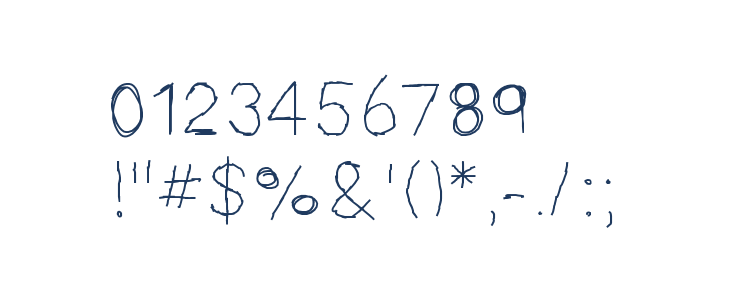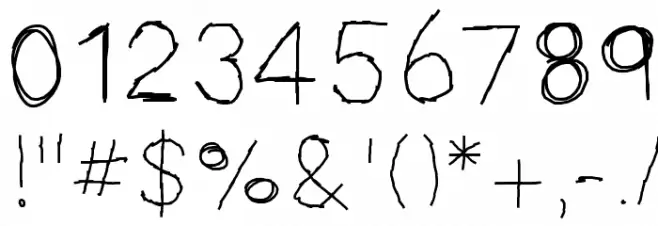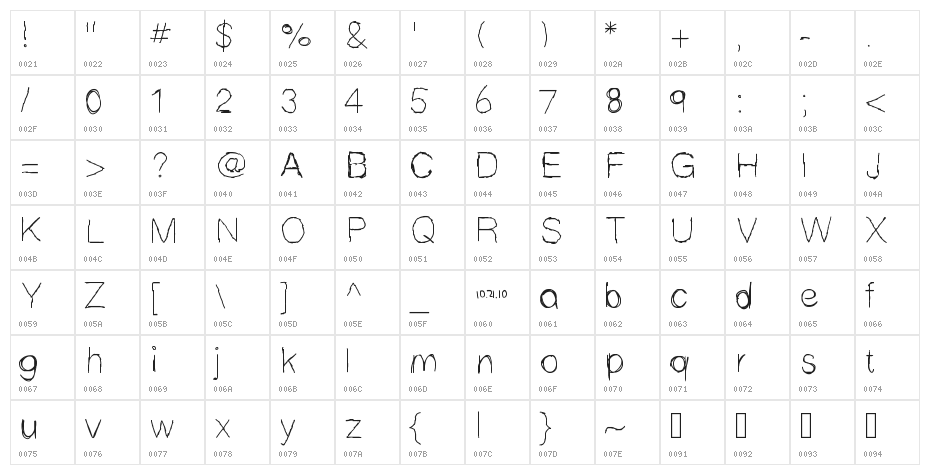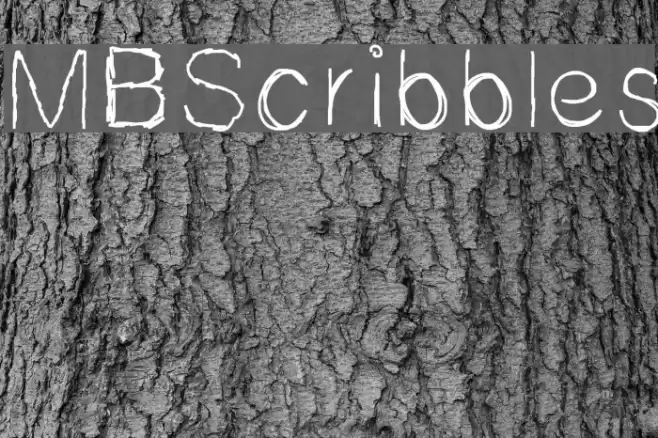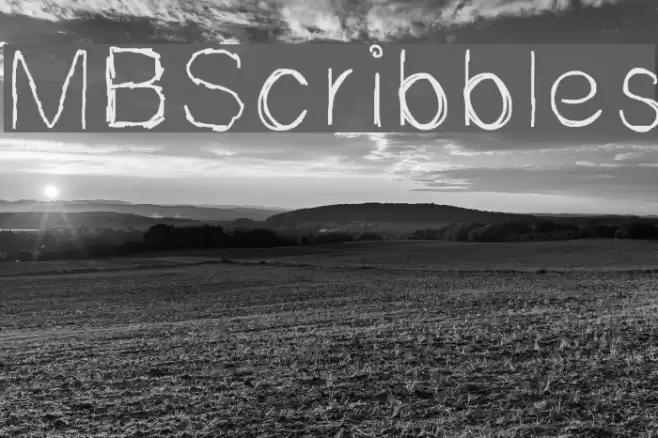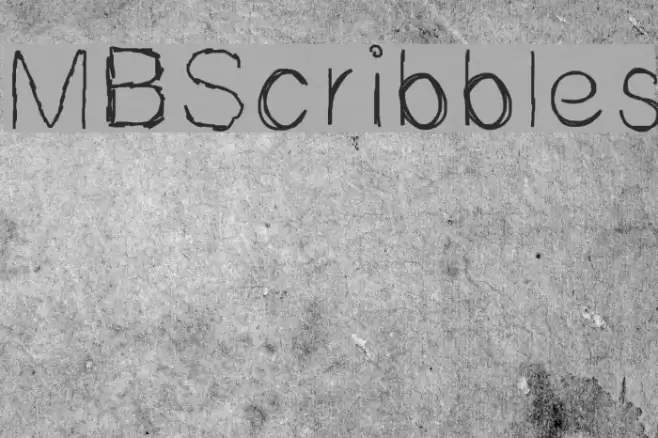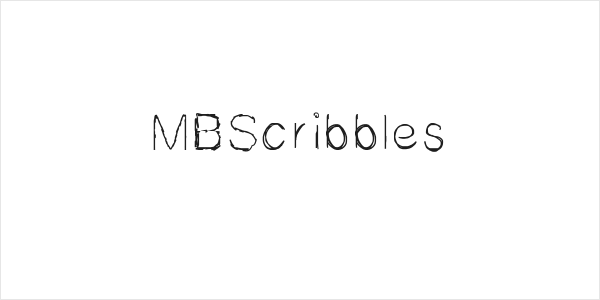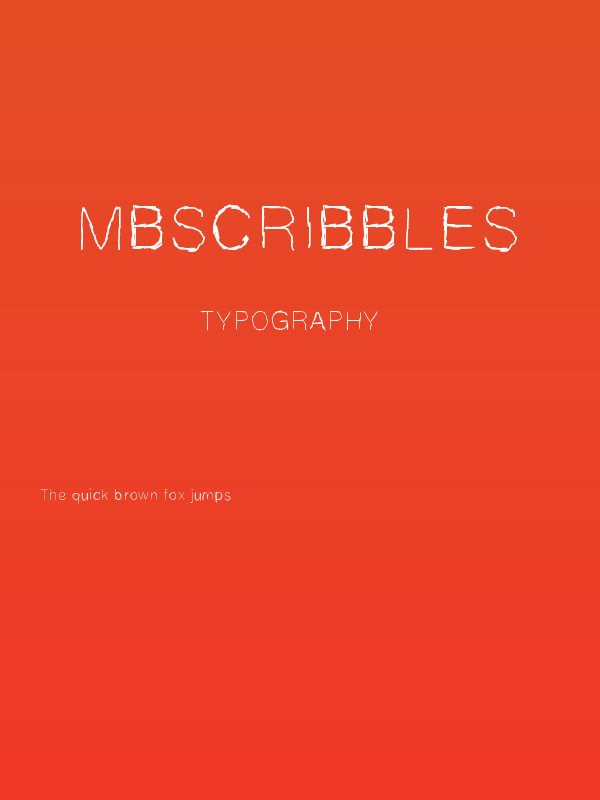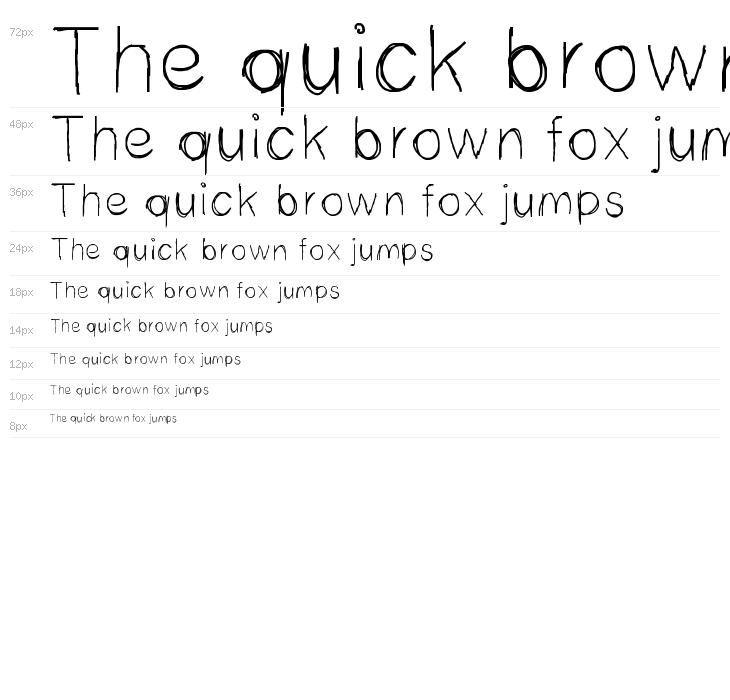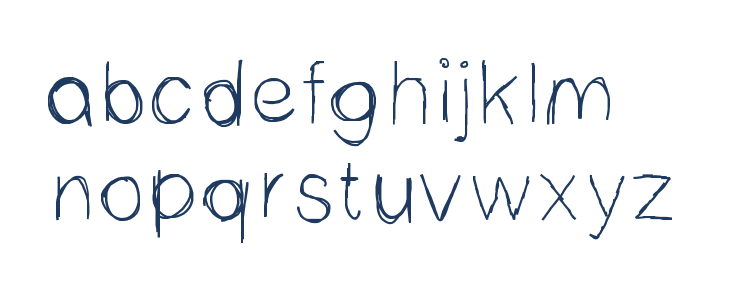
MBScribbles Font
MBScribbles Description
This font features a playful, hand-drawn style with irregular, sketchy lines that give it a casual and artistic appearance. The characters are slightly uneven, adding to the whimsical and informal feel. Uppercase and lowercase letters maintain a consistent style, with rounded edges and a slightly rough texture. The numbers and special characters follow the same design, ensuring a cohesive look throughout. This font's unique, handcrafted aesthetic makes it stand out, offering a personal touch to any design.